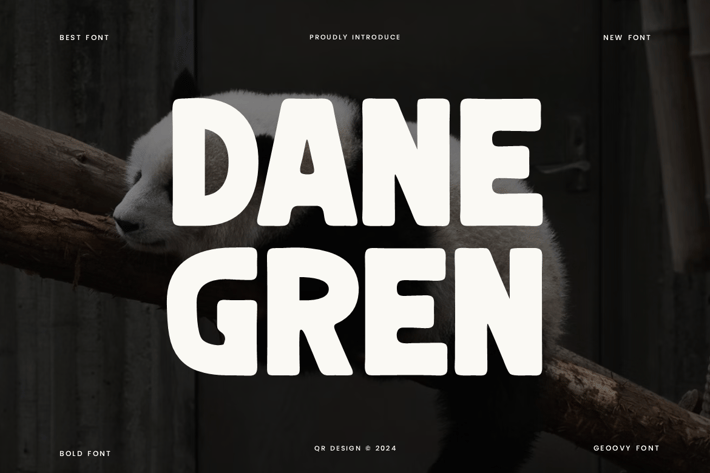
Danegren - Round & Bold Font
Danegren Font is a bold and authentic display font.
The font is suitable for any branding project like poster, logo, sport, kids, and many more.